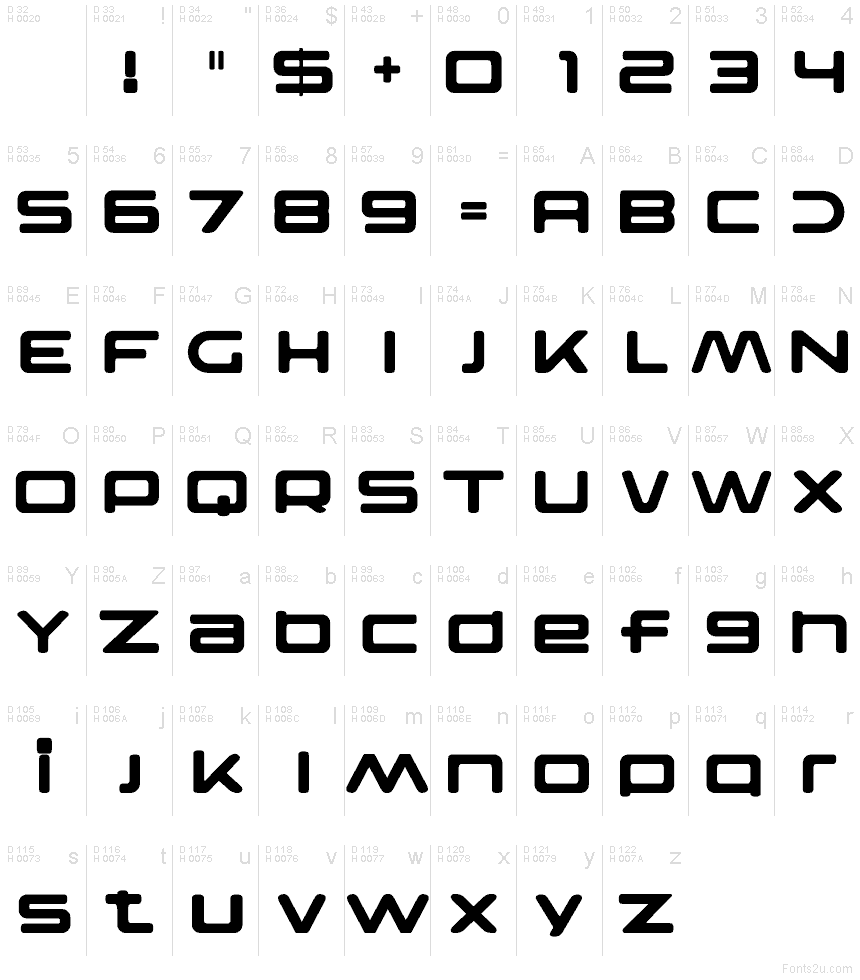
Fear Robot 19
Fear Robot 19 font by Ffeeaarr is a free futuristic display font. Built around chunky, tubular strokes and pill-shaped counters, it feels engineered—like characters extruded from glossy black plastic. The rhythm is tight and compact, with squared loops and softened corners that keep the techno vibe readable rather than cold. Those modular curves create a steady grid, so titles lock up neatly and look intentional at any scale.
This free font shines on sci‑fi posters, game titles, esports branding, tech event flyers, streaming overlays, and electronic album art. Its consistent weight and snug spacing give instant cohesion, especially in all-caps wordmarks. Using Fear Robot 19 with a light, neutral geometric sans for body copy adds contrast without a clash. Set it large with generous tracking to let those squared counters breathe.